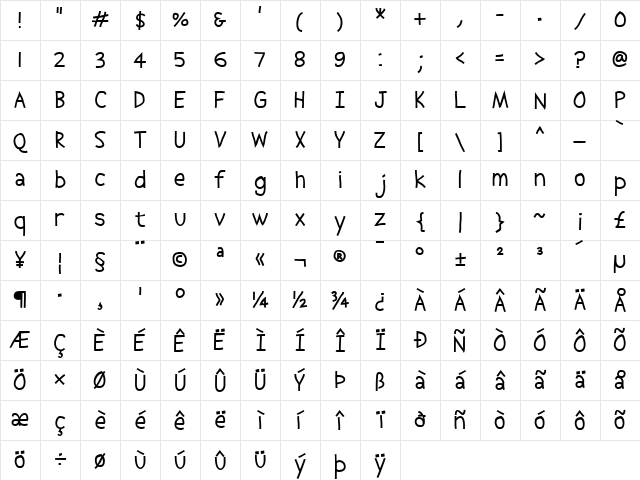
Abscissa Regular Free Font
Abscissa Regular
Design Context for Abscissa
Abscissa is a composed and adaptable typeface that performs quietly and consistently across a wide range of design contexts.
Pro Tip: Use Abscissa in both headline and body roles to test its range before committing to a single application.